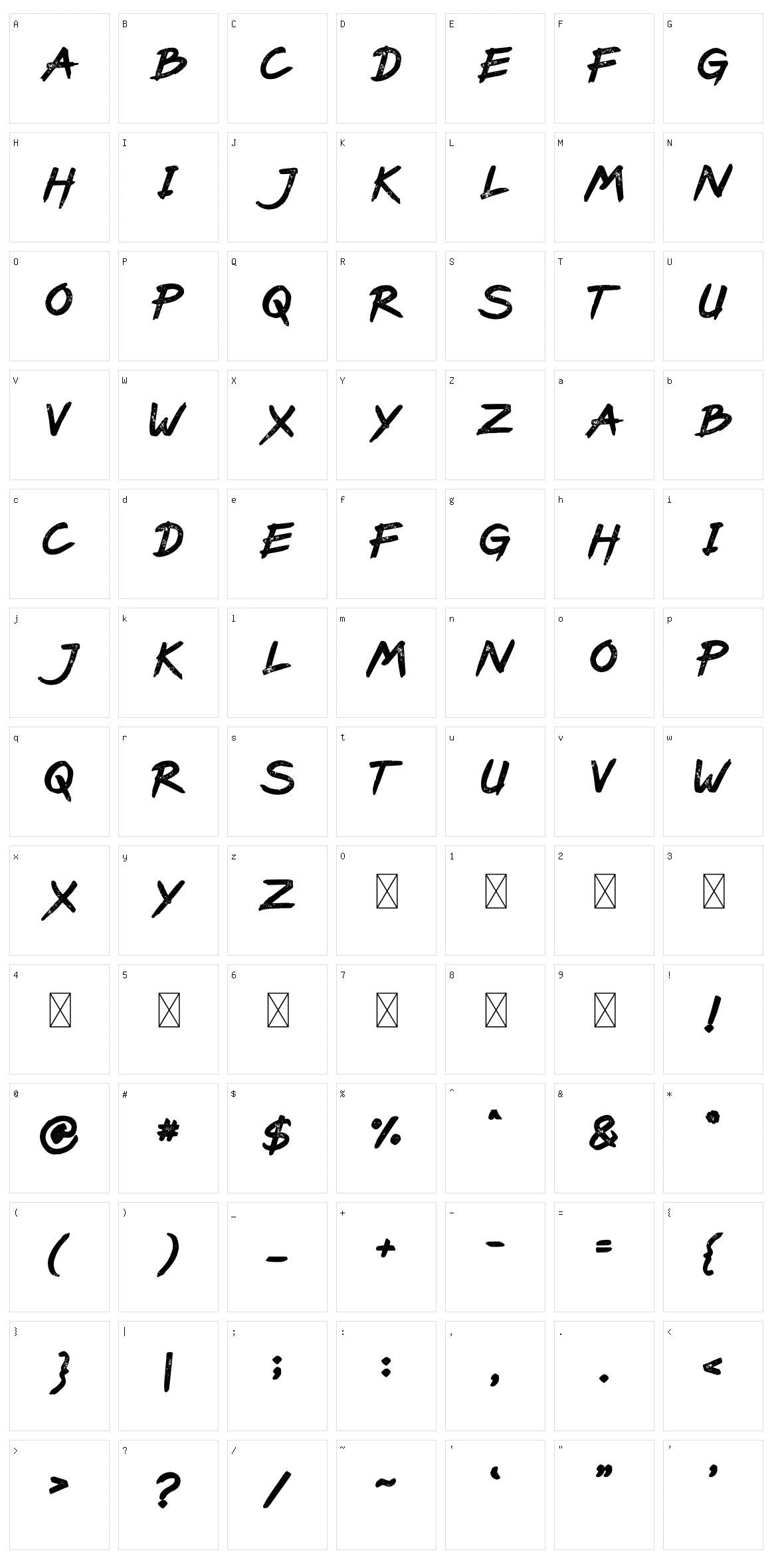
The free font Pax Suyudz is carefully designed by PutraCetol Studio, showcasing a thoughtful balance of creativity and usability and falls under the Script font style. When you download the ZIP file, it contains only 1243.81 KB of font files, making it lightweight and quick to download. Please review the license details below to understand permitted usage and distribution rights. If license information is not available, we recommend using this font for personal projects only or contacting the author directly for commercial usage permissions.